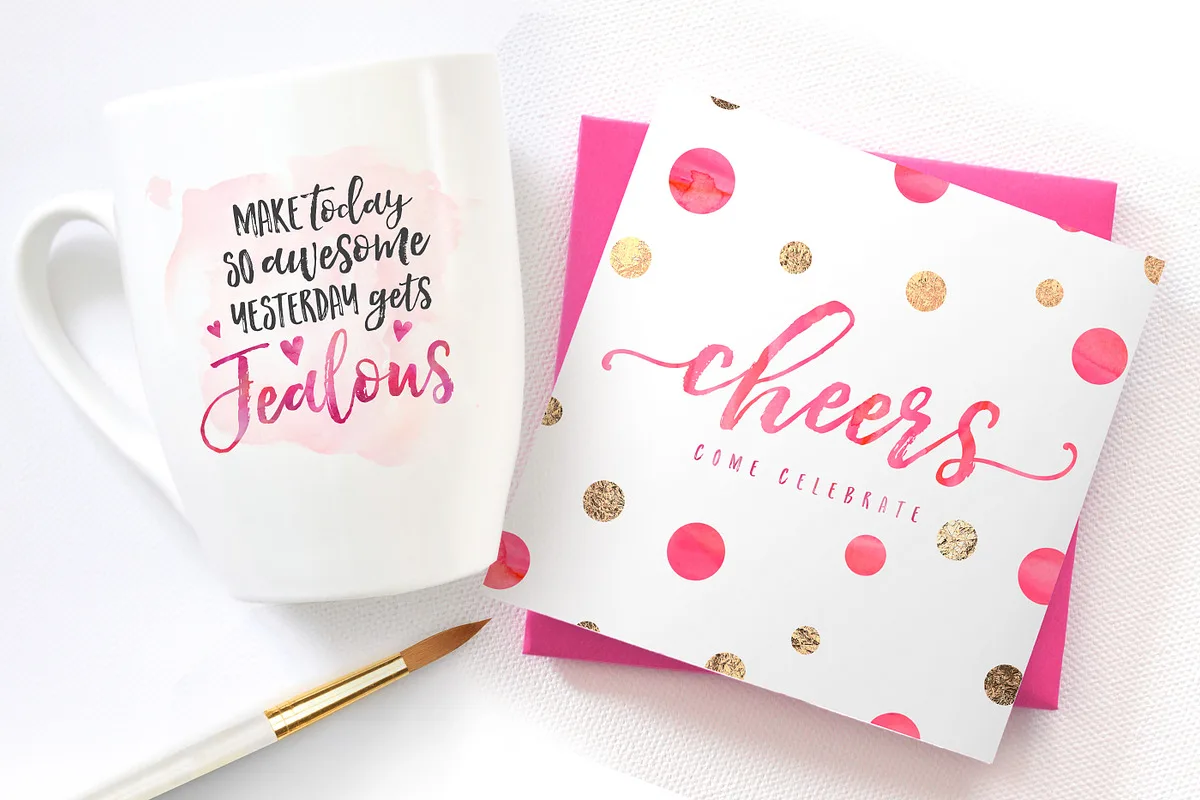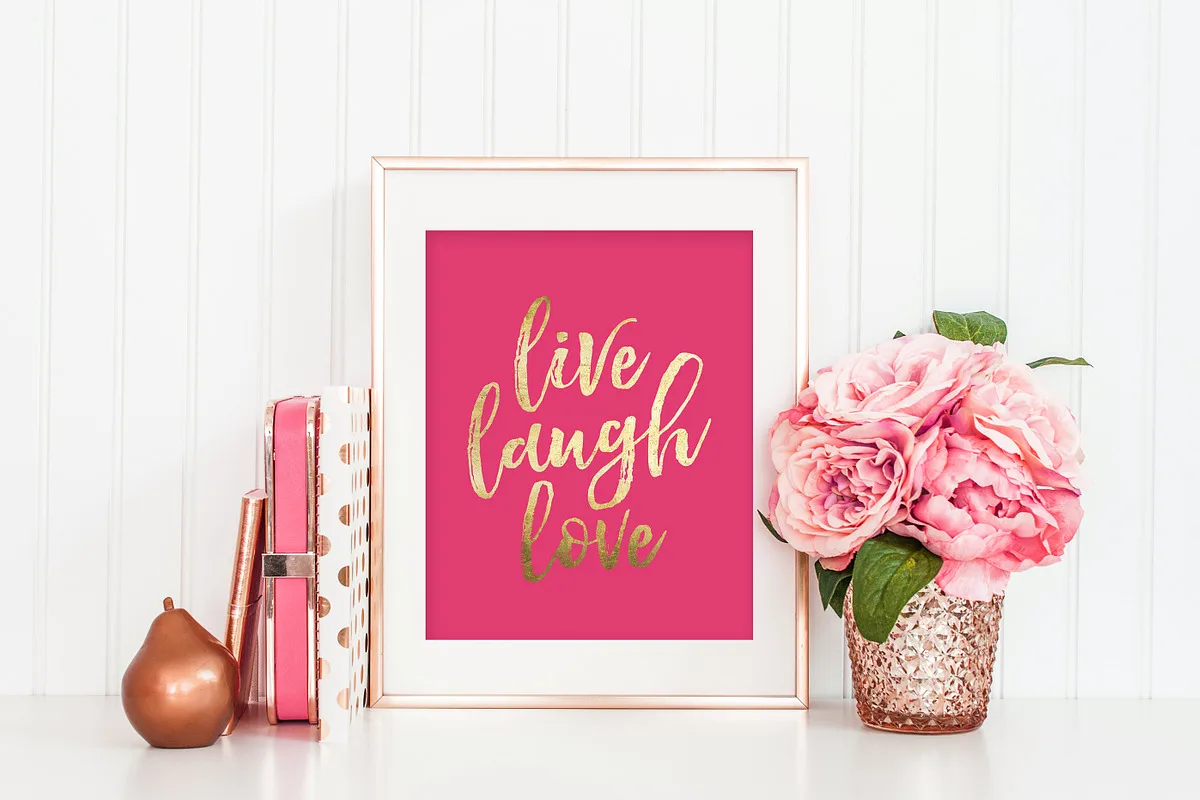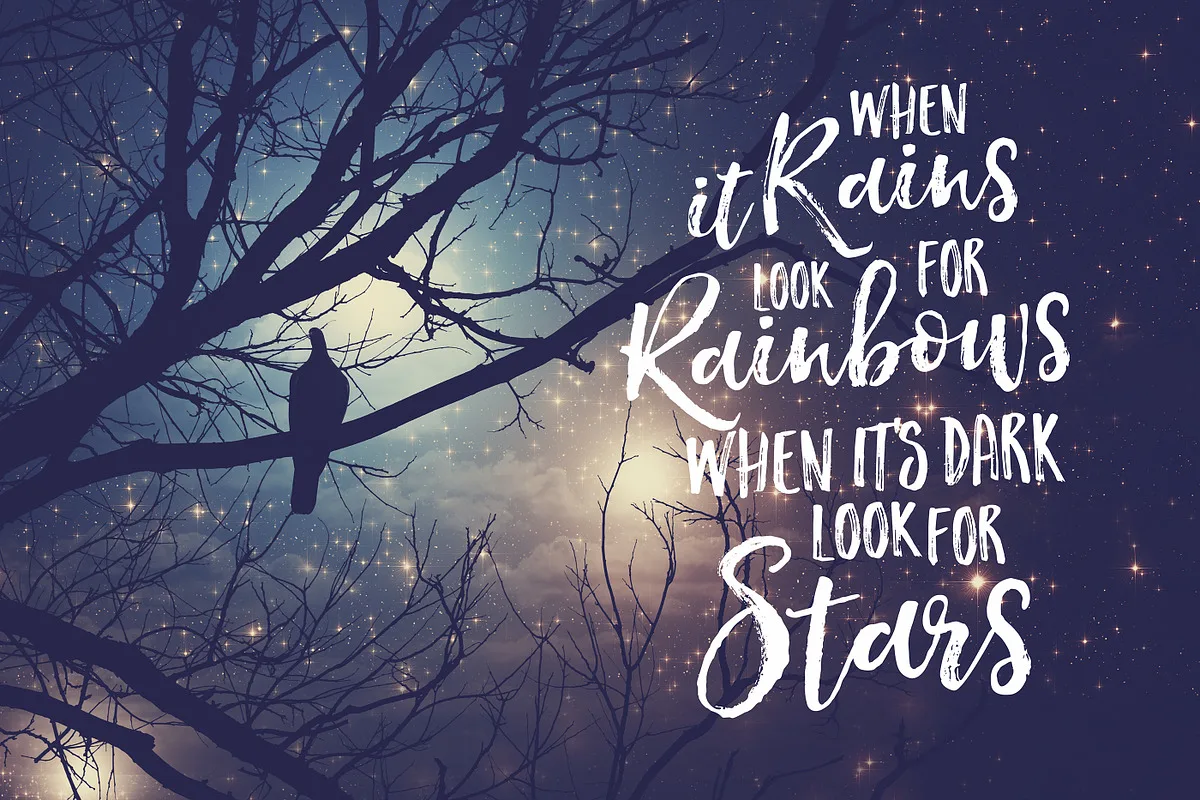
Introducing Hello Sunshine! A delightfully playful font duo with oodles of character! Hello Sunshine is a hand brushed typeface, with authentic tell-tale dry brush imperfections, and a very bouncy baseline 🙂 It has a perfectly paired complimentary marker font , and a super handy set of 52 bonus ornaments.
Hello Sunshine Script has a large variety of alternate characters ,allowing you to make each word look completely unique to the next! Ligatures are also included also – to bring true authenticity to your design. It has multilingual support with accented characters for international users.
For those folk who would prefer,I’ve included a set of corresponding TTF files. A Happy Duo : Hello Sunshine Marker is a complimentary dry marker font, that works in harmony with Hello Sunshine Script to create awesome typographical creations in a jiffy – get some inspiration for the previews above.